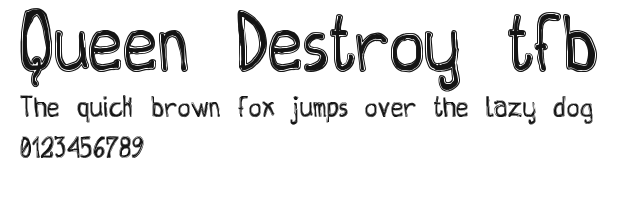
Queen Destroy tfb.ttf
• Designer: kaiser zhar khan
About Queen Destroy tfb.ttf
Queen Destroy tfb.ttf is a modern, elegant sans-serif font designed for ultimate readability and visual harmony. Perfect for branding, headlines, web design, and print materials.